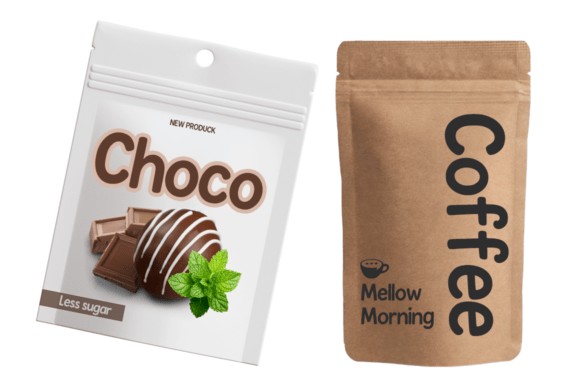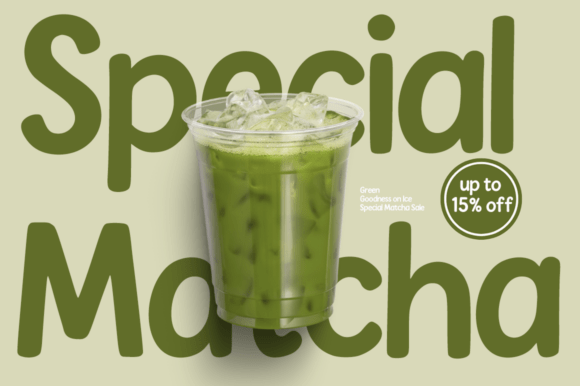
Study Buddy Font
Immerse yourself in the joyous exuberance of Study Buddy, a whimsically handwritten sans-serif font teeming with friendly curves and bubbly personality.
The rounded and lively stylings beautifully embody the gleeful spirit of childhood. While deceptively simple, Study Buddy conveys a refreshing expressiveness, masterfully underlying its versatility across an array of creative endeavors.
It resonates perfectly with education-centric projects, enlivening kids’ activities, and elevating the fun quotient of any event. Its inviting warmth perfects the tone for school posters and worksheets, while its chirpy charisma shines through on birthday invites or children’s product packaging.
Even on social media designs, Study Buddy leaves an enduring, cheerful impact. Come and explore the vibrant world of Study Buddy, where every letter is a burst of joy.